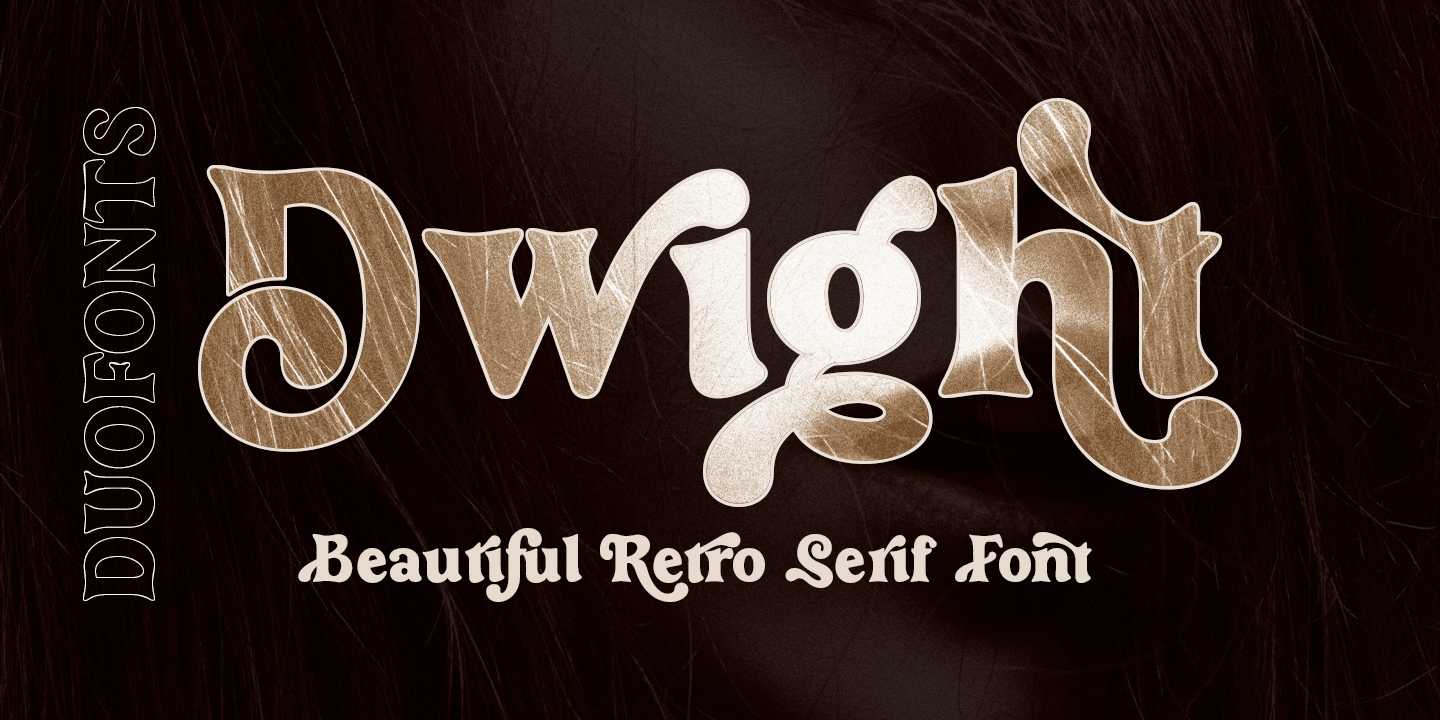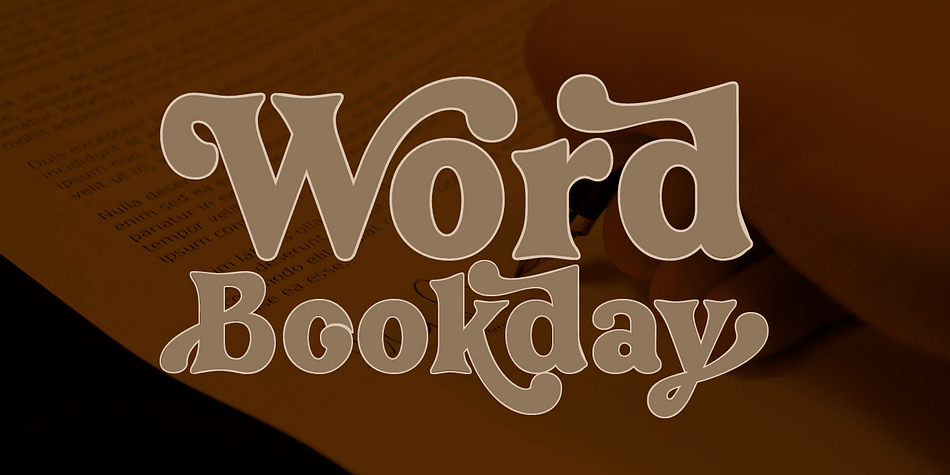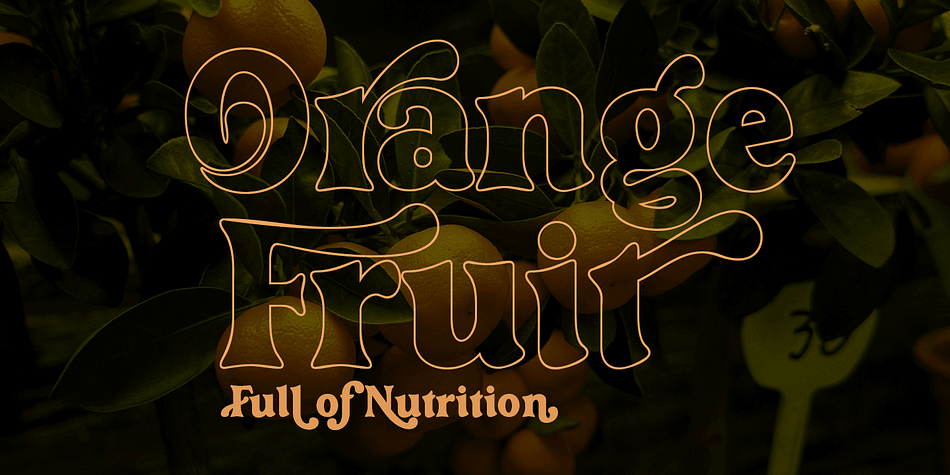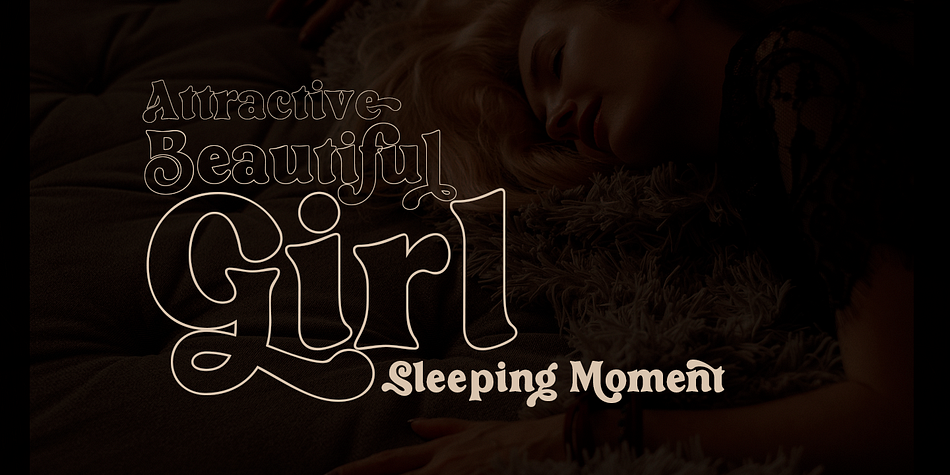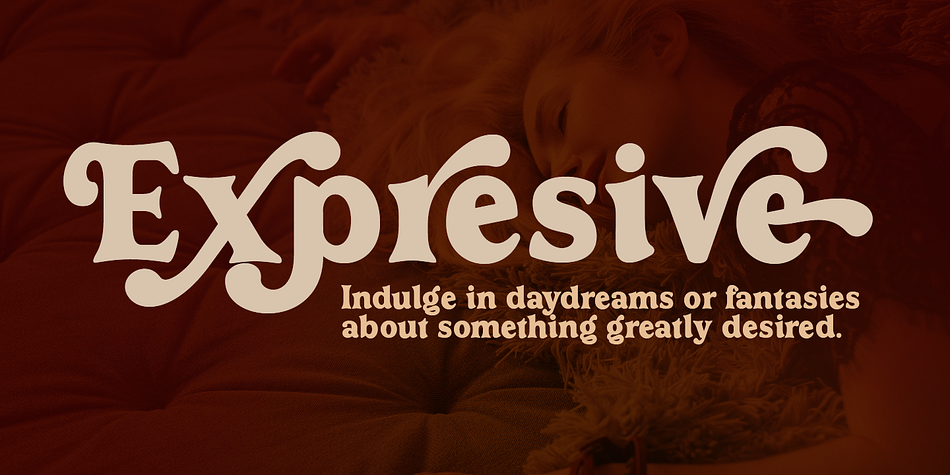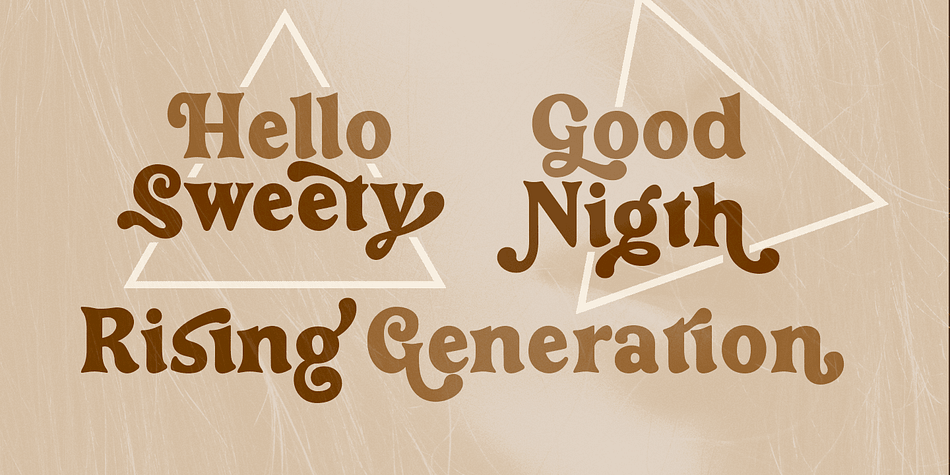
Dwight
Designed by Roiyani Teungku, Dwight is a display serif and retro font family. This typeface has two styles and was published by Groens.
Dwight is a Serif font family, which has a strong and bold character with two variants, Dwightgives a clear and elegant look to logos, quotes, advertisements and more.
Dwight is a versatile typography filled with the character you want, Dwight has standard styles, Stylistic Alternates and ligatures. and includes upper and lower case letters, numbers and punctuation marks.
Dwight works great in any branding, logos, magazines, films. The different weights give you full range to explore a whole host of applications, while the outlined fonts give a real modern feel to any project.